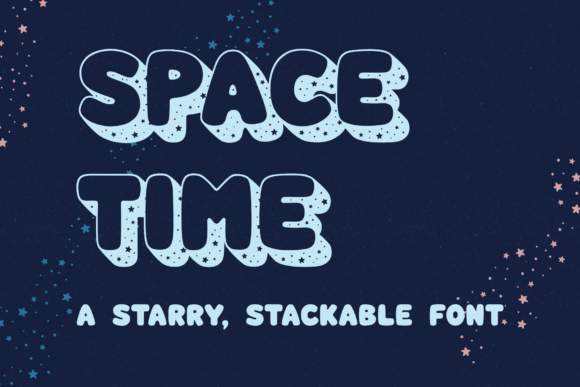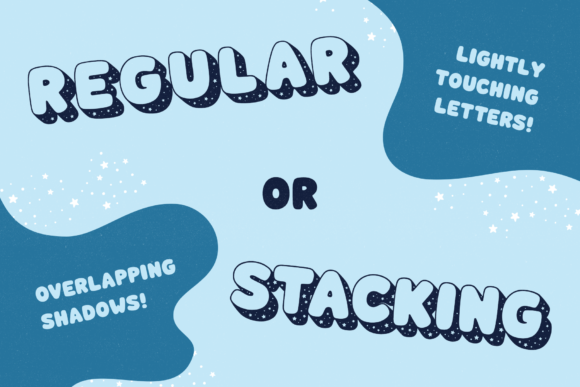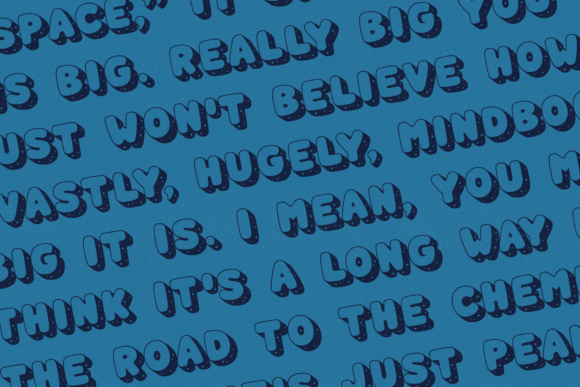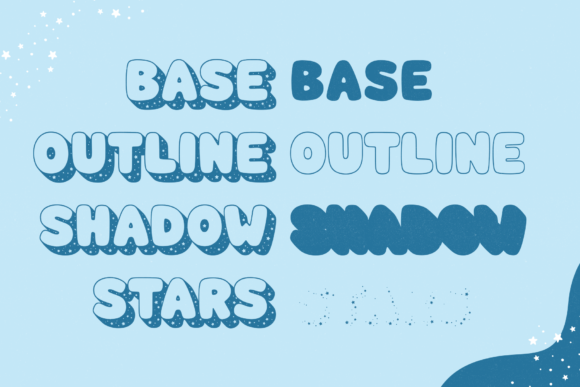
Space Time is a cool, starry, and outlined display font. It will elevate a wide range of crafting ideas, from cards to branding, labels, and much more.